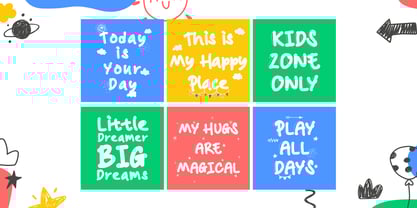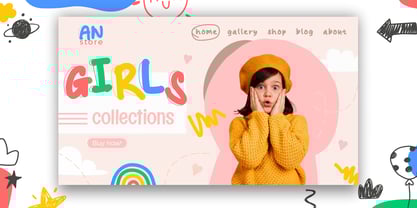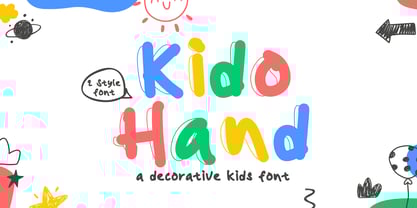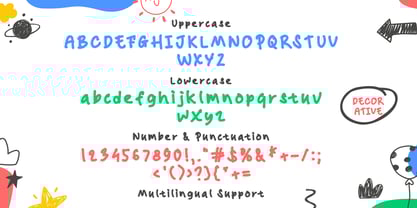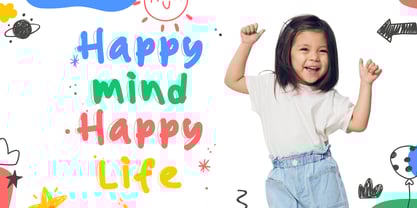
Kido Hand
by Sipanji21
The Kido Hand Font Family was designed by Sipanji and published by Sipanji21. Kido Hand contains 2 styles and family package options. More about this family
Kido Hand is a decorative kids' handwritten font that captures the natural, playful strokes of a child's handwriting. Designed with a fun and carefree feel, this font comes in two styles—clean and decorative—allowing for versatility in different design projects. Its organic, hand-drawn appearance makes it perfect for children’s books, school projects, educational materials, greeting cards, branding, and creative crafts.
With its lighthearted and expressive style, Kido Hand adds warmth and charm to any design. Whether you're working on playful posters, kid-friendly packaging, or whimsical illustrations, this font brings a sense of joy and authenticity to your typography.